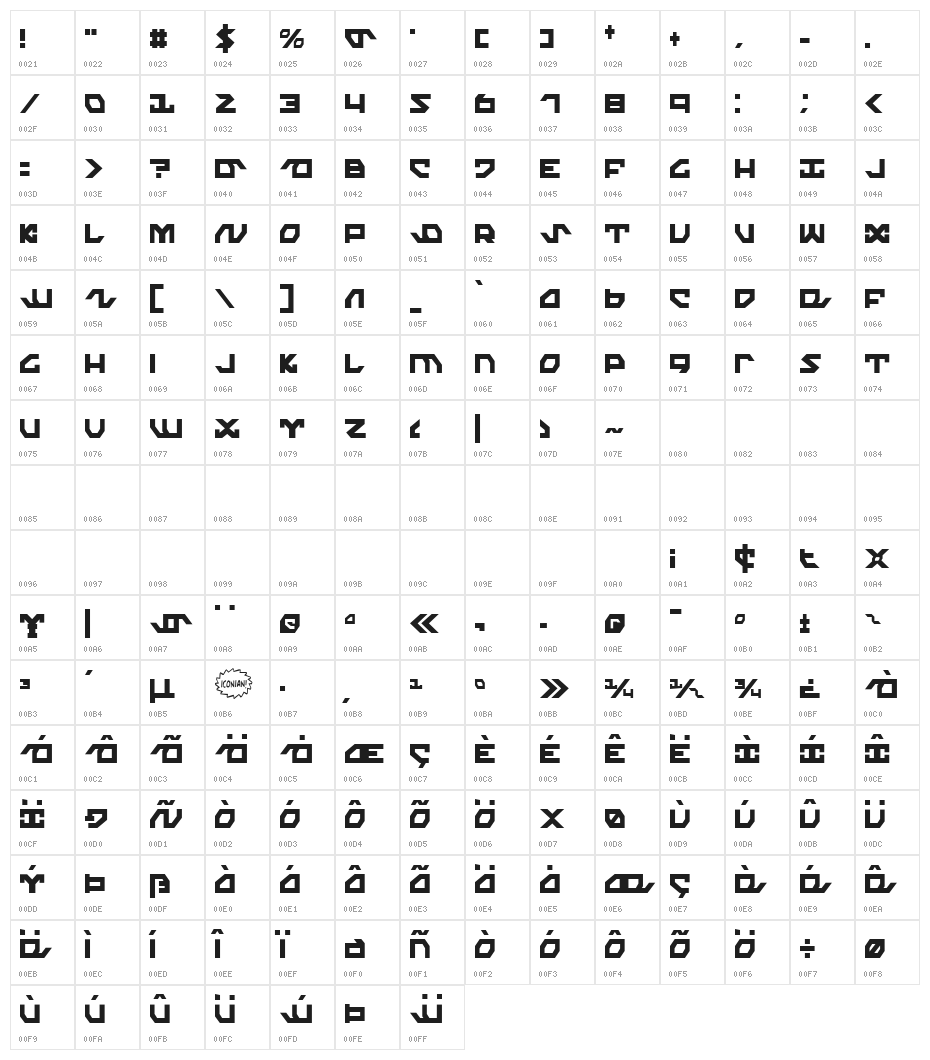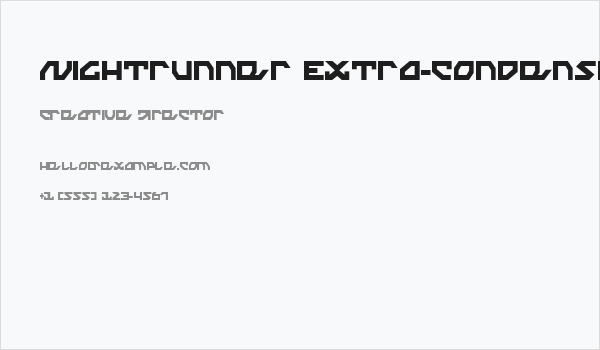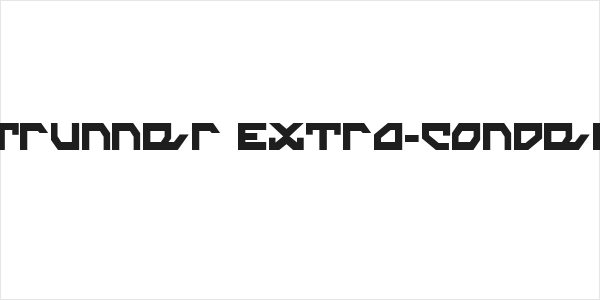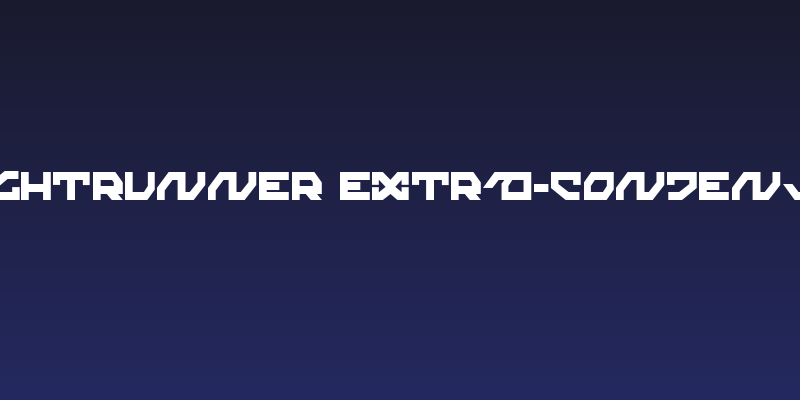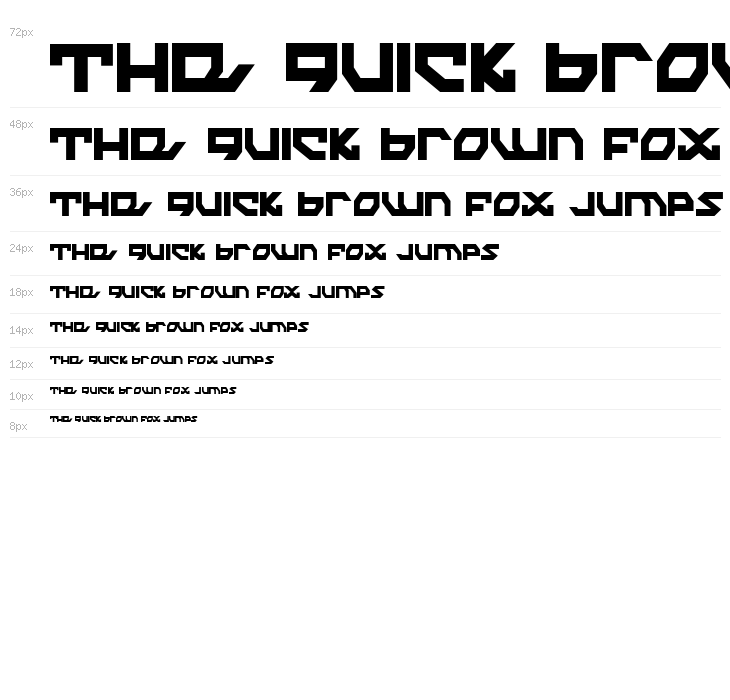
Nightrunner Extra-Condensed Font
Nightrunner Extra-Condensed Description
This font features a bold, angular design with a futuristic and geometric aesthetic. The characters are constructed with sharp edges and a blocky structure, giving it a distinctive and modern appearance. The uppercase and lowercase letters maintain a consistent style, with the lowercase slightly smaller but equally bold. Numbers and special characters follow the same design principles, ensuring uniformity across all glyphs. The font's unique style makes it stand out, ideal for projects that require a strong visual impact.
| Proposed Projects | Ideal for sci-fi themed designs, video game titles, posters, and branding that requires a modern and edgy look. |